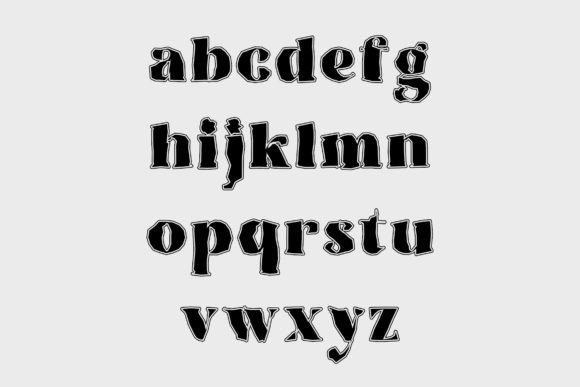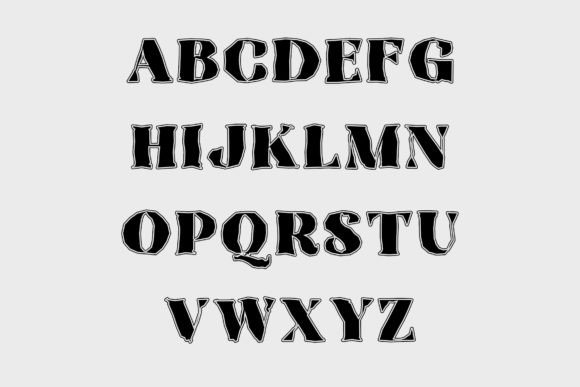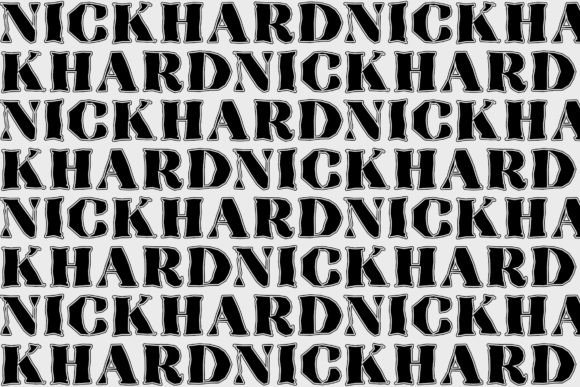
Introduction to Fanaghos Font
Fanaghos Font offers exceptional quality and versatility, making it a valuable addition to your design toolkit. Whether you’re creating for personal projects or commercial use, Fanaghos Font delivers professional results.